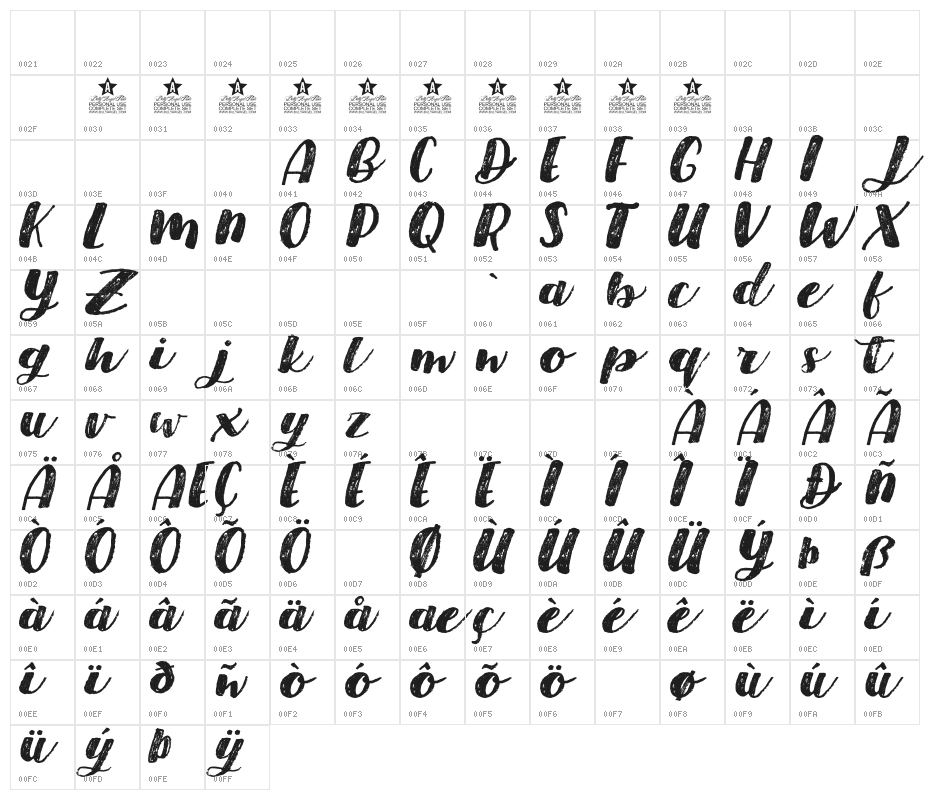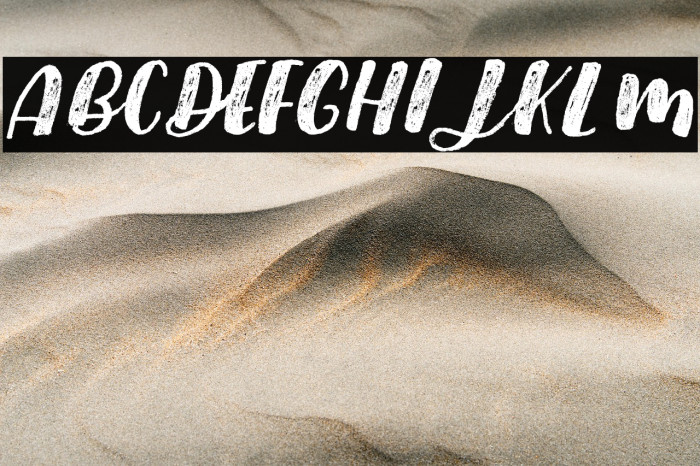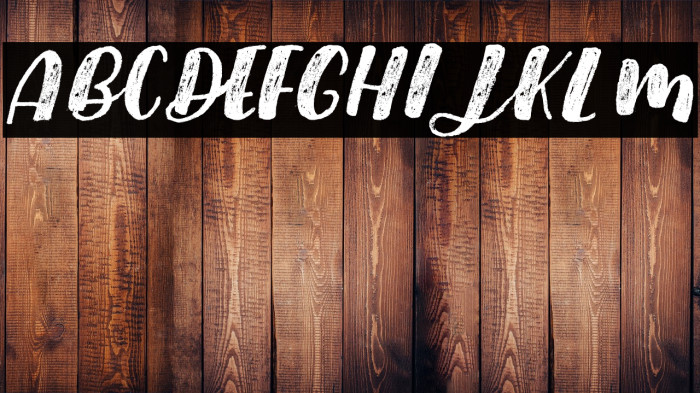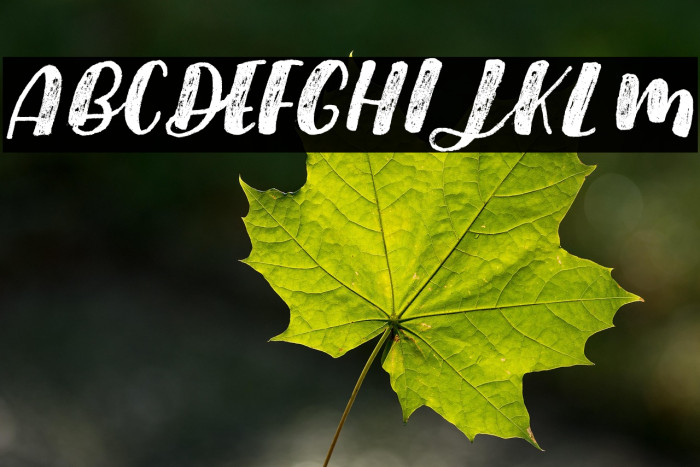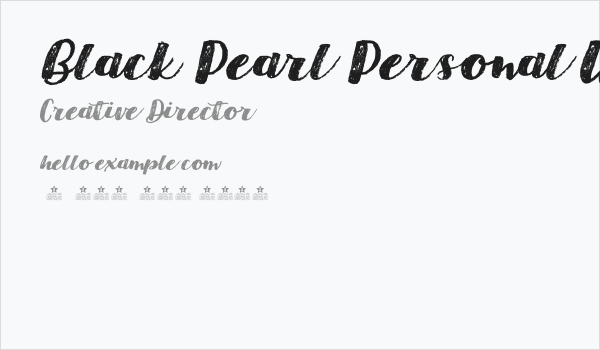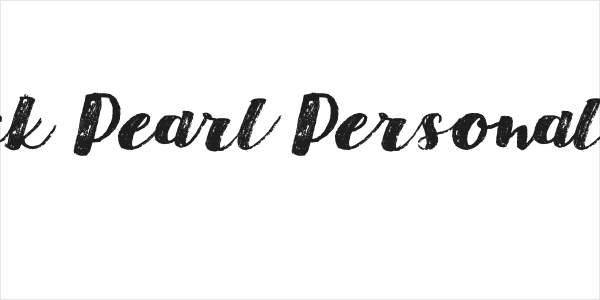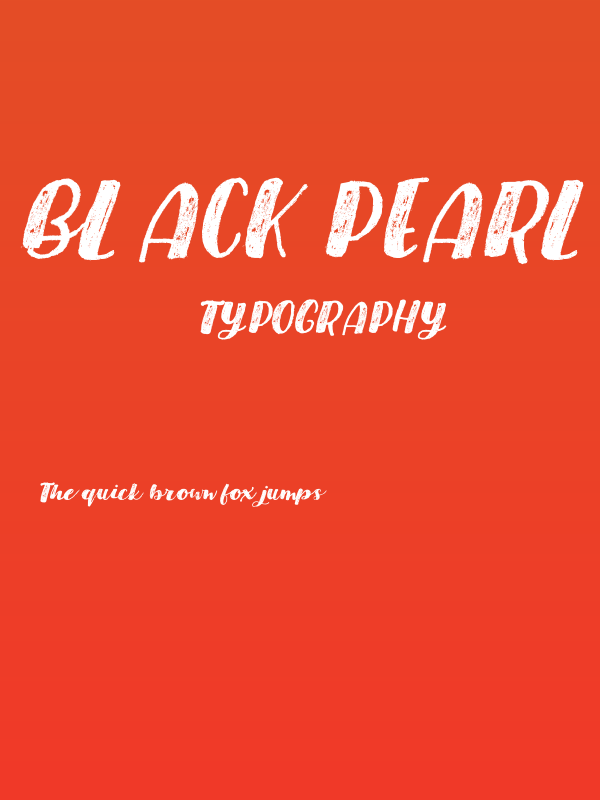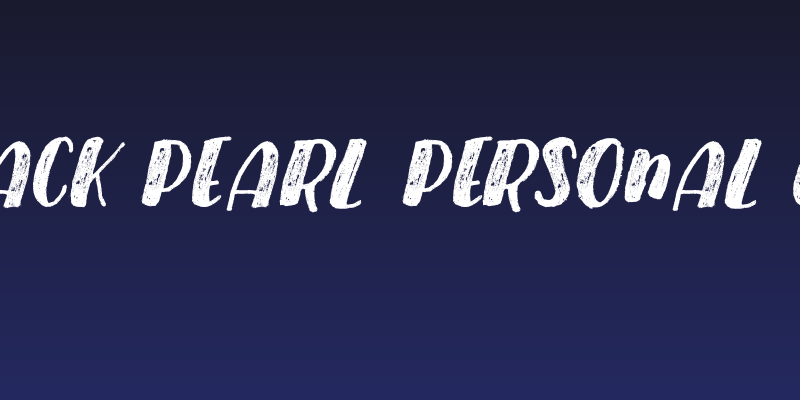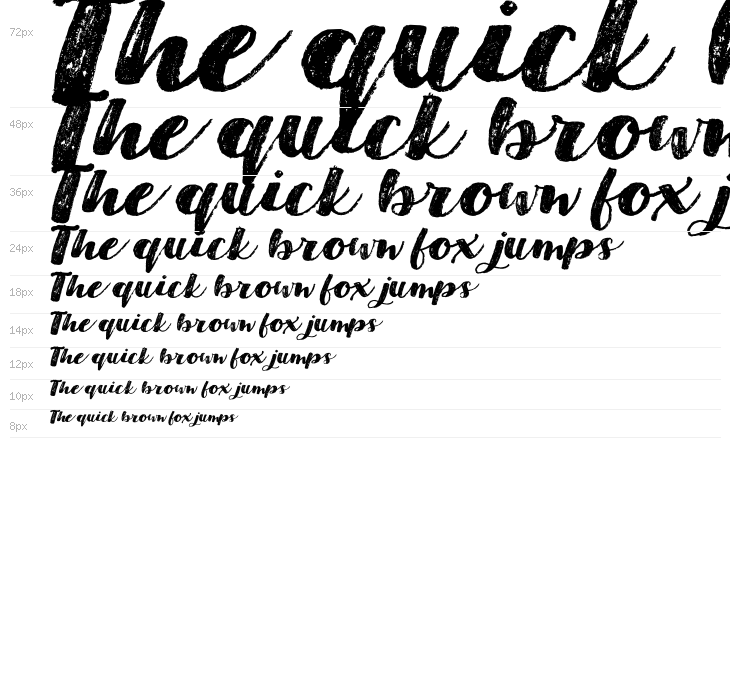
Black Pearl Personal Use Font
Black Pearl Personal Use Description
This font features a bold, brush script style with a textured, distressed appearance. The letters are fluid and dynamic, with a hand-painted look that adds a sense of movement and energy. The uppercase and lowercase characters maintain a consistent style, with sweeping curves and varying stroke widths that give the font a lively and artistic feel. The texture within the letters adds depth, making it suitable for designs that require a rustic or vintage touch. The special characters are integrated seamlessly, maintaining the overall aesthetic of the font.
| Proposed Projects | Ideal for branding projects, posters, invitations, and any design that requires a handcrafted, artistic touch. |